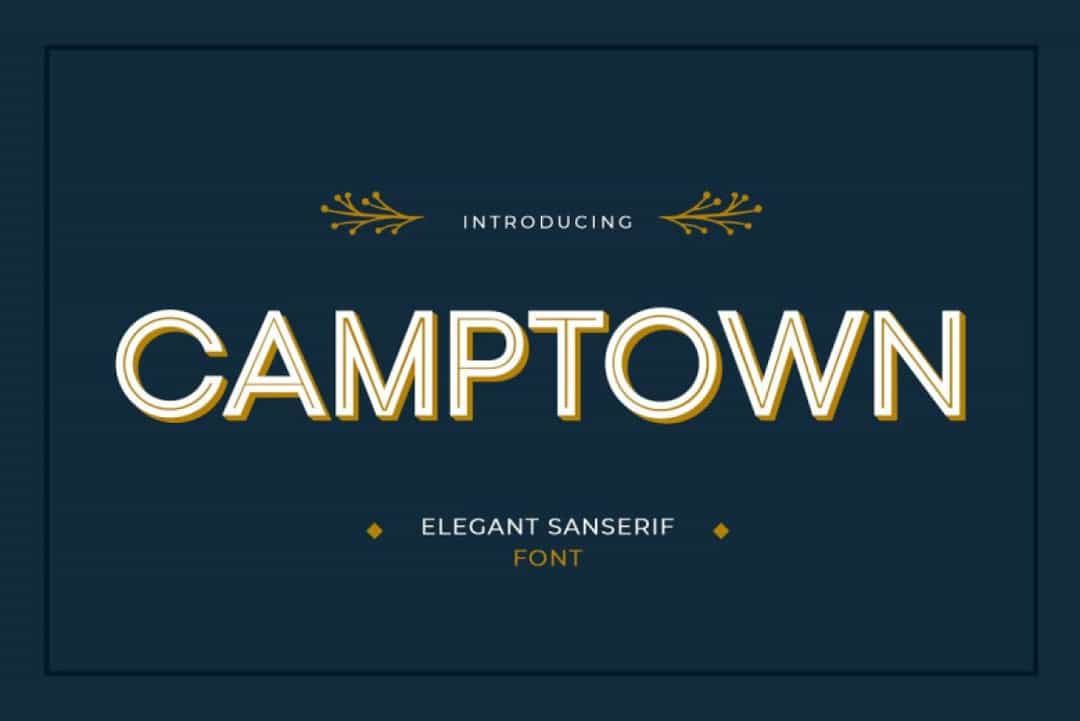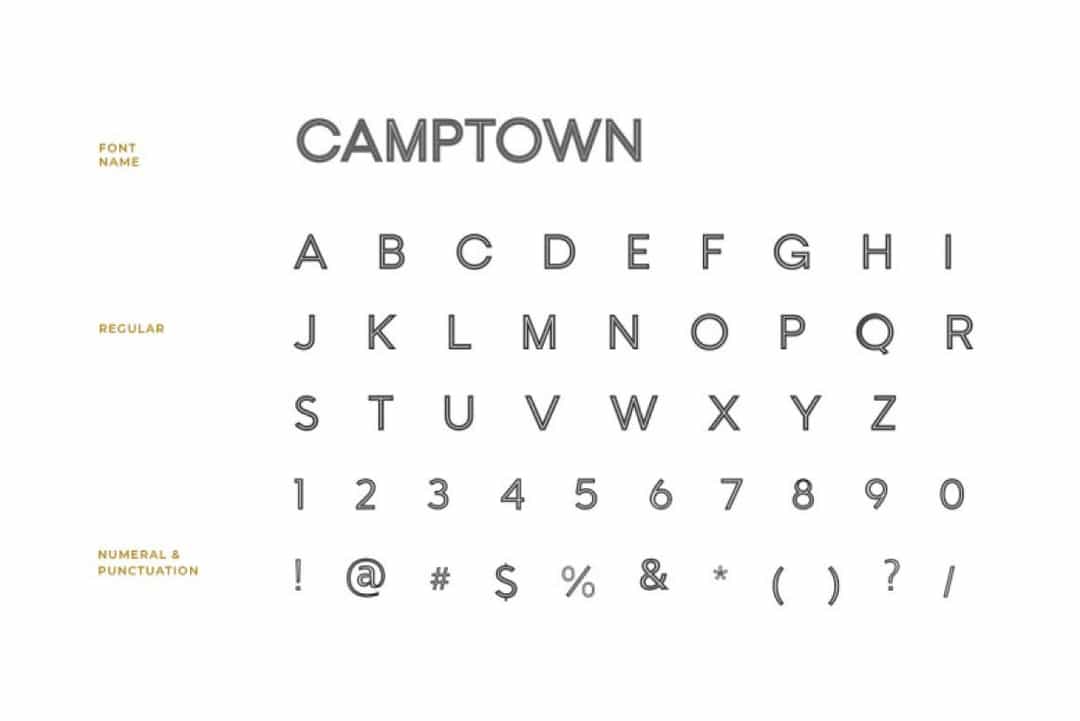
Camptown is a sans serif font which blends traditional style fonts with minimalist influences to produce elegant and beautiful fonts with ligatures and other font substitutions for each character. Camptown makes discovering your design style easier by including various styles for posters, logos covers, packaging primary packaging t-shirts wedding cards business cards or more! So what are you waiting for? Get out there and start creating!